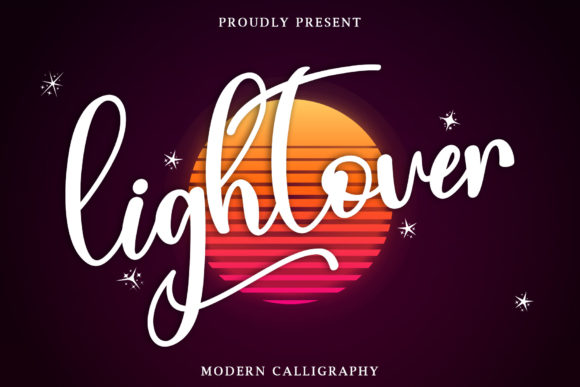
**Introducing Lightover: The Ultimate Script Font for Card Making**
In the realm of card making, where creativity knows no bounds, Lightover emerges as a captivating script font that will ignite your imagination and elevate your creations to new heights.
Lightover's graceful curves and whimsical flourishes embody the very essence of elegance, making it the perfect choice for crafting heartfelt messages, invitations, and greeting cards that leave a lasting impression.
With its PUA encoding, accessing the font's full repertoire of glyphs and swashes is a breeze, empowering you to unleash endless possibilities.
But Lightover is more than just a font; it's an invitation to express your individuality, to let your emotions flow freely onto paper. Its versatility knows no limits, whether you're designing charming wedding invitations, heartfelt thank-you notes, or whimsical birthday cards.
Picture the joy on your loved ones' faces as they receive a card adorned with Lightover's exquisite script. Its timeless beauty will evoke a sense of warmth and appreciation, transforming simple words into cherished keepsakes.
Join countless card makers who have discovered the magic of Lightover. Let its graceful lines inspire you to create cards that are not just visually stunning but also deeply meaningful.
**Experience the enchantment of Lightover and elevate your card making to new heights today!**